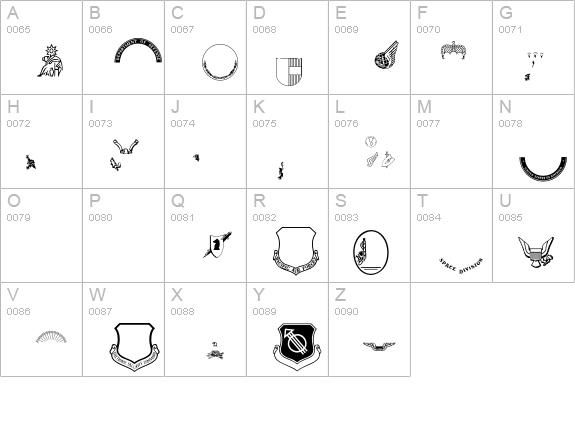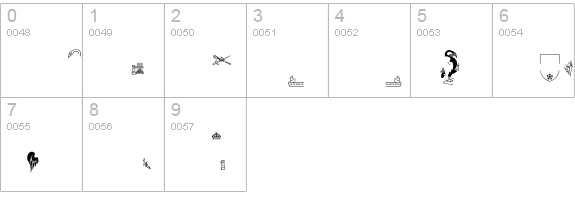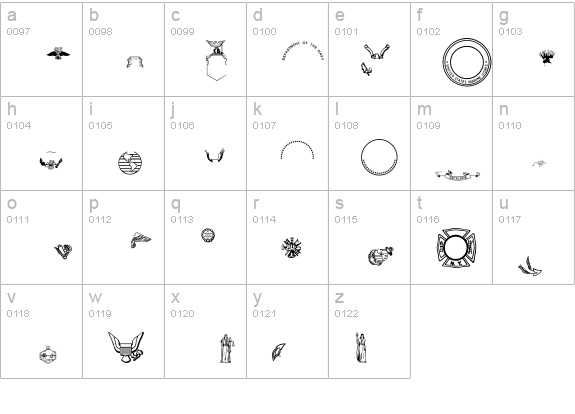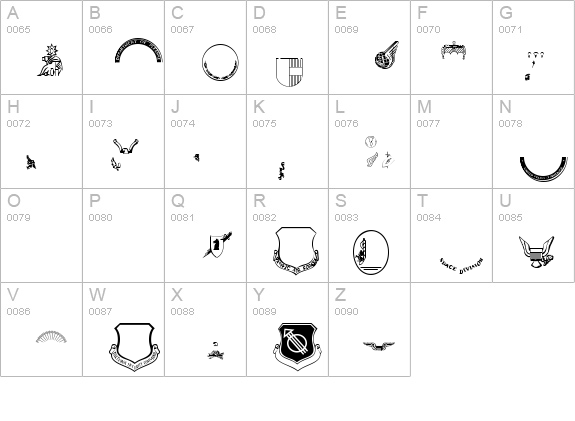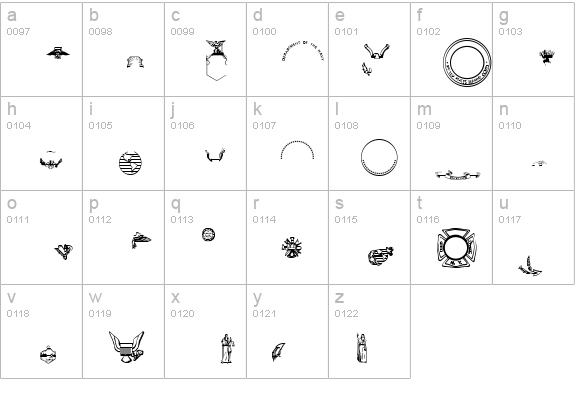
SpecialSealsP01 Font Details
Introducing SpecialSealsP01 font, a unique and captivating typeface that is sure to make a lasting impression. This font is perfect for those looking to add a touch of elegance and sophistication to their designs. With its beautifully crafted letterforms and exquisite details, SpecialSealsP01 font exudes a sense of grandeur and allure. What sets SpecialSealsP01 font apart is not only its stunning aesthetics but also its versatility. Whether you're creating wedding invitations, branding materials, or social media graphics, this font is a perfect choice. Its timeless appeal and distinct personality will effortlessly elevate any project to new heights. And the best part? SpecialSealsP01 font is completely free! That's right, you can now download this remarkable font for free at FontsMarket.com. We believe in the power of creativity and accessibility, and we want everyone to have the opportunity to enhance their designs with this extraordinary font. So why wait? Don't miss out on the chance to make your designs truly extraordinary with SpecialSealsP01 font. Download it today, and let your creativity soar to new heights.